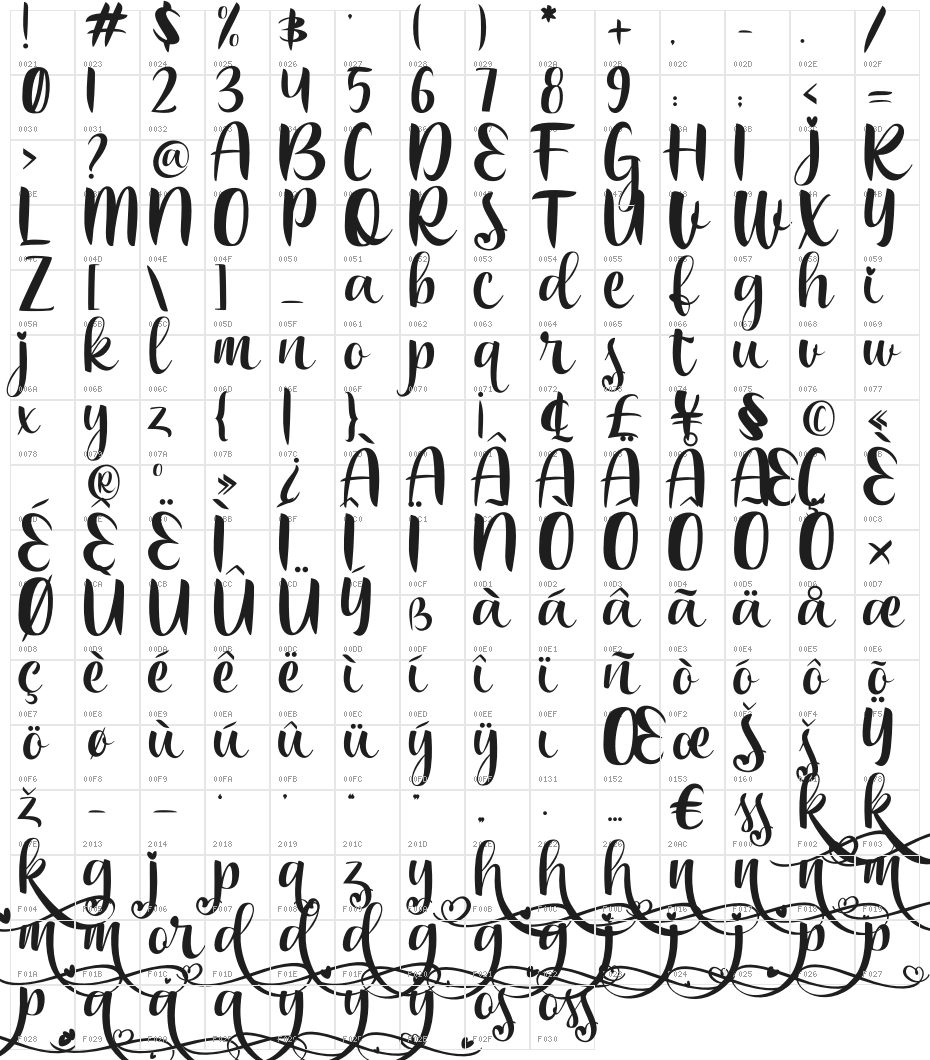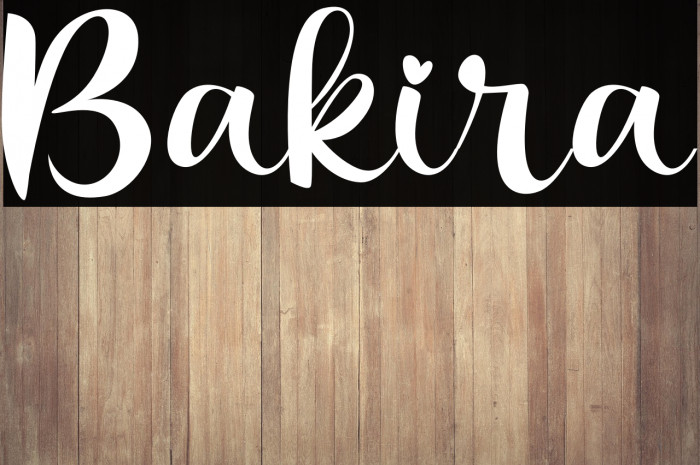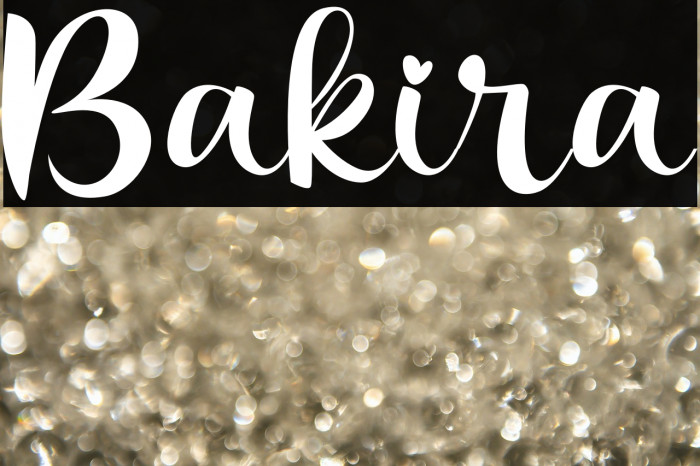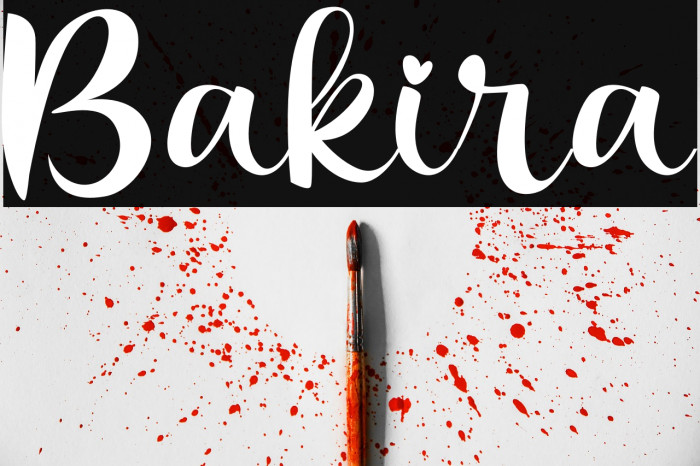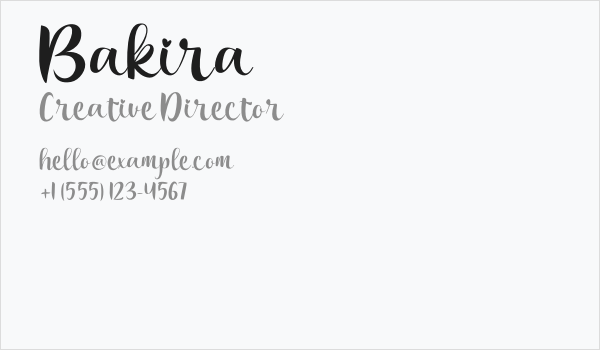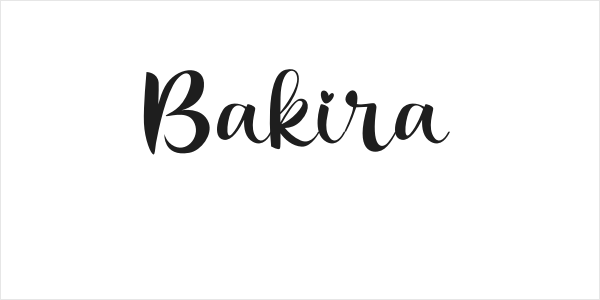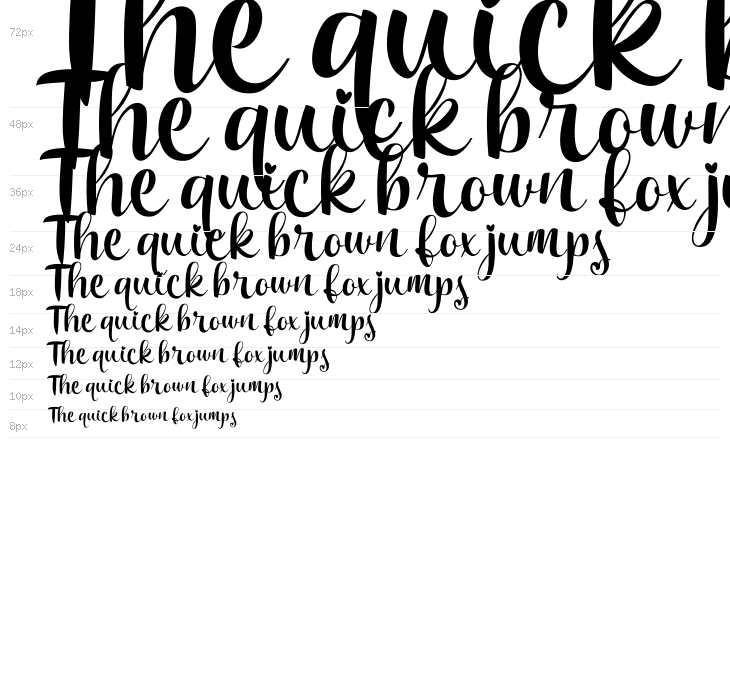
Bakira Font
Bakira Description
This font exudes a lively and expressive character, characterized by its bold and flowing script style. The letters are crafted with a sense of movement, featuring thick and thin strokes that create a dynamic contrast. The uppercase letters are particularly striking, with elegant curves and a slightly playful touch, while the lowercase letters maintain a consistent rhythm and fluidity. The numerals are equally expressive, matching the overall style with their bold presence. Special characters are designed with the same attention to detail, ensuring a cohesive look across all elements. This font is perfect for projects that require a personal and artistic touch, such as invitations, branding, and creative headlines.
Use CaseHeadlines, Logos, Invitations
Proposed ProjectsIdeal for invitations, branding, creative headlines, and artistic projects.